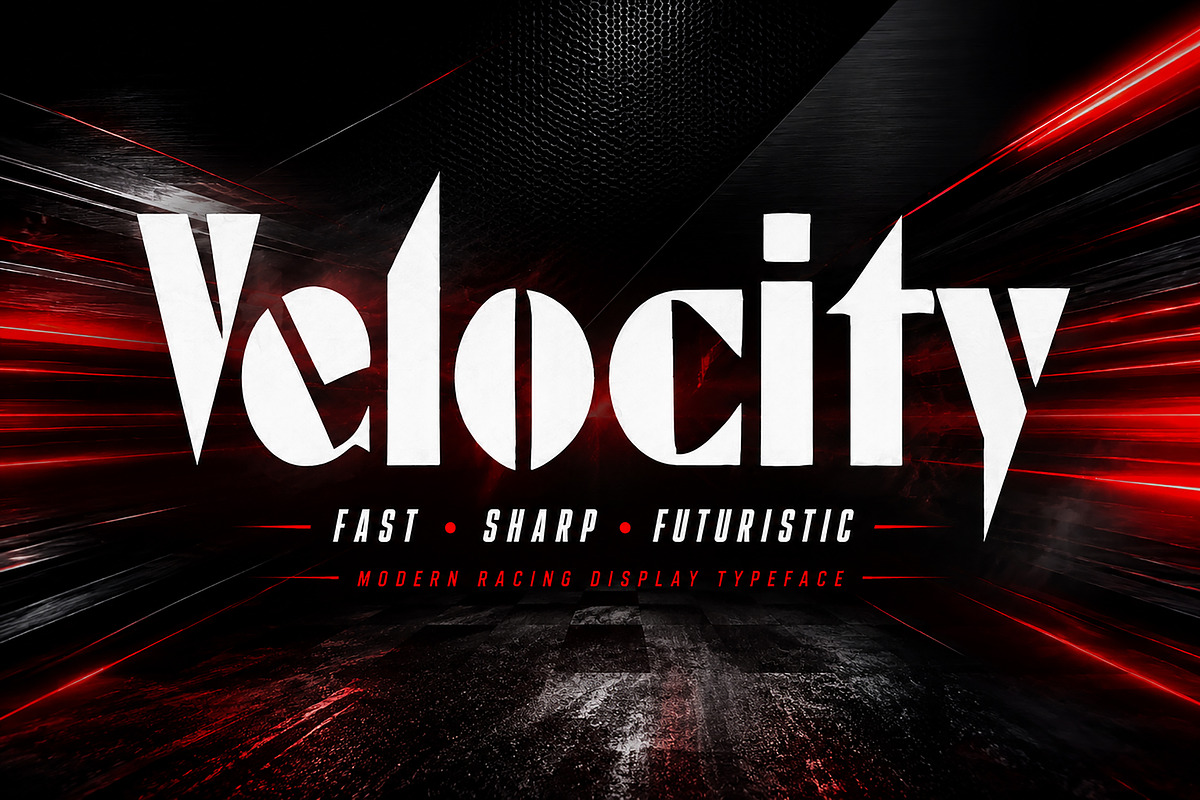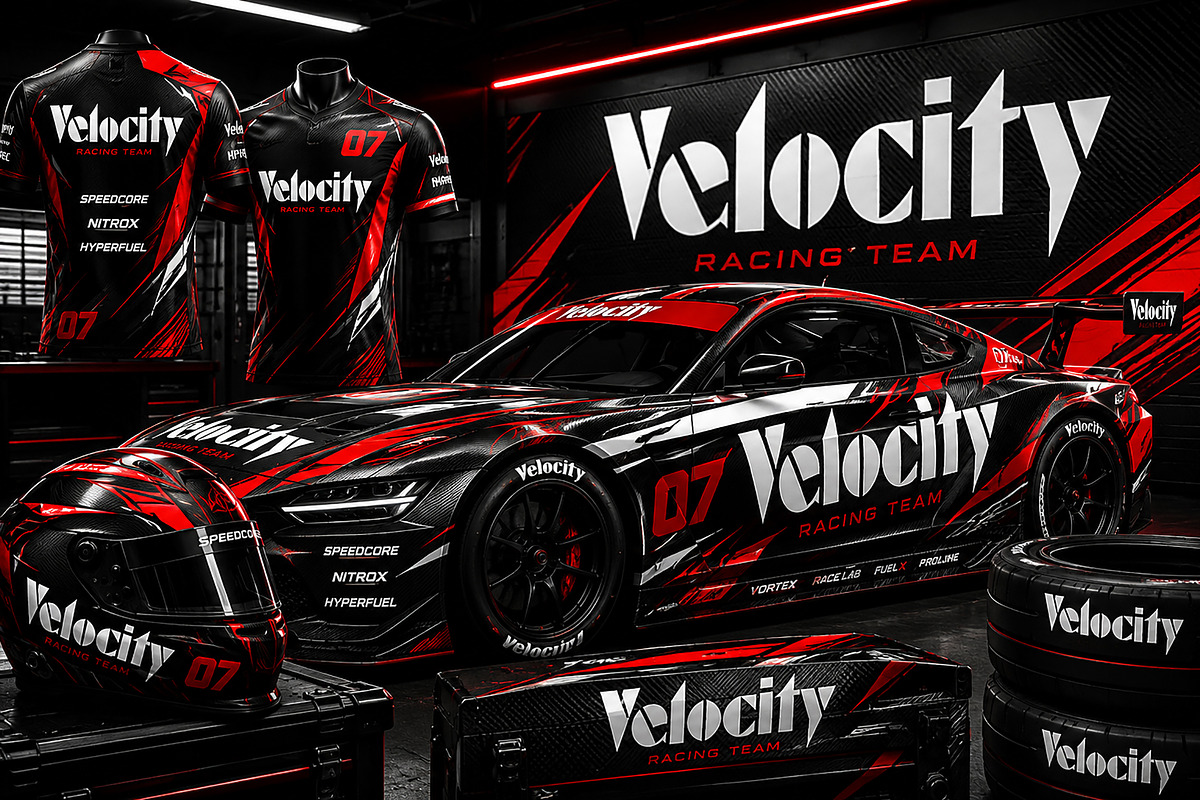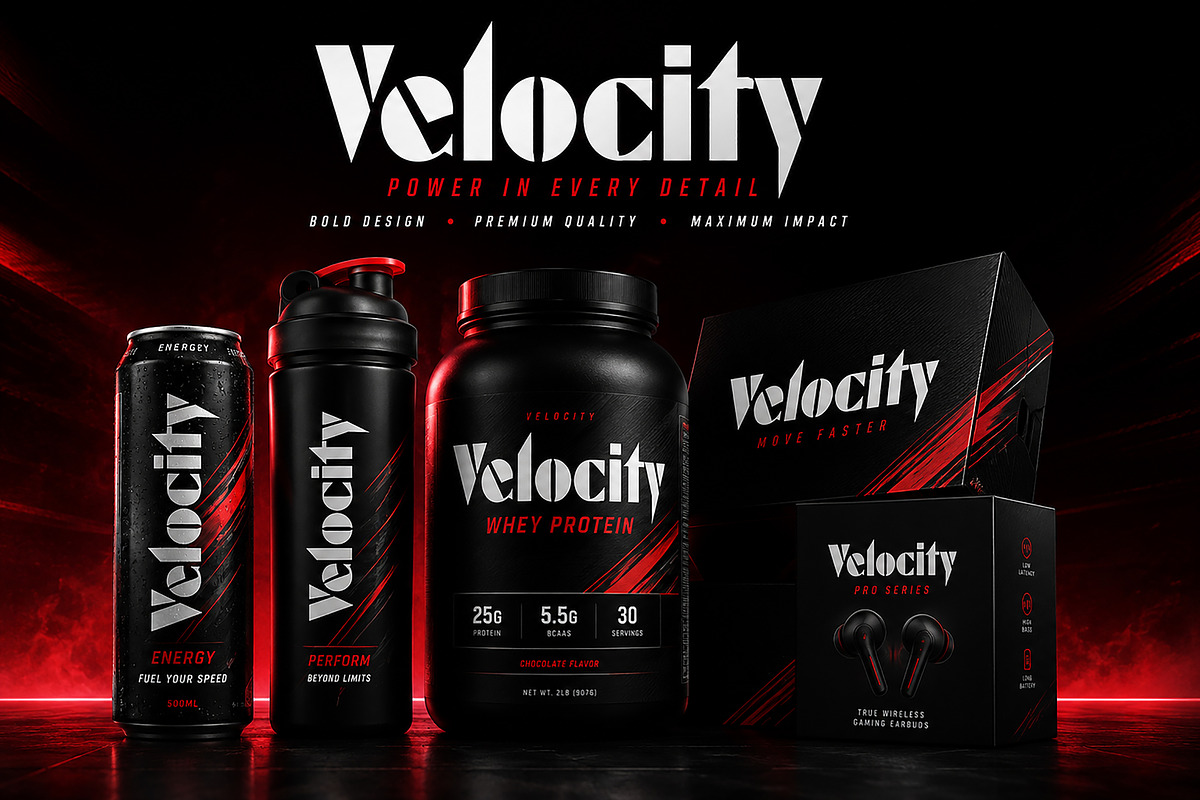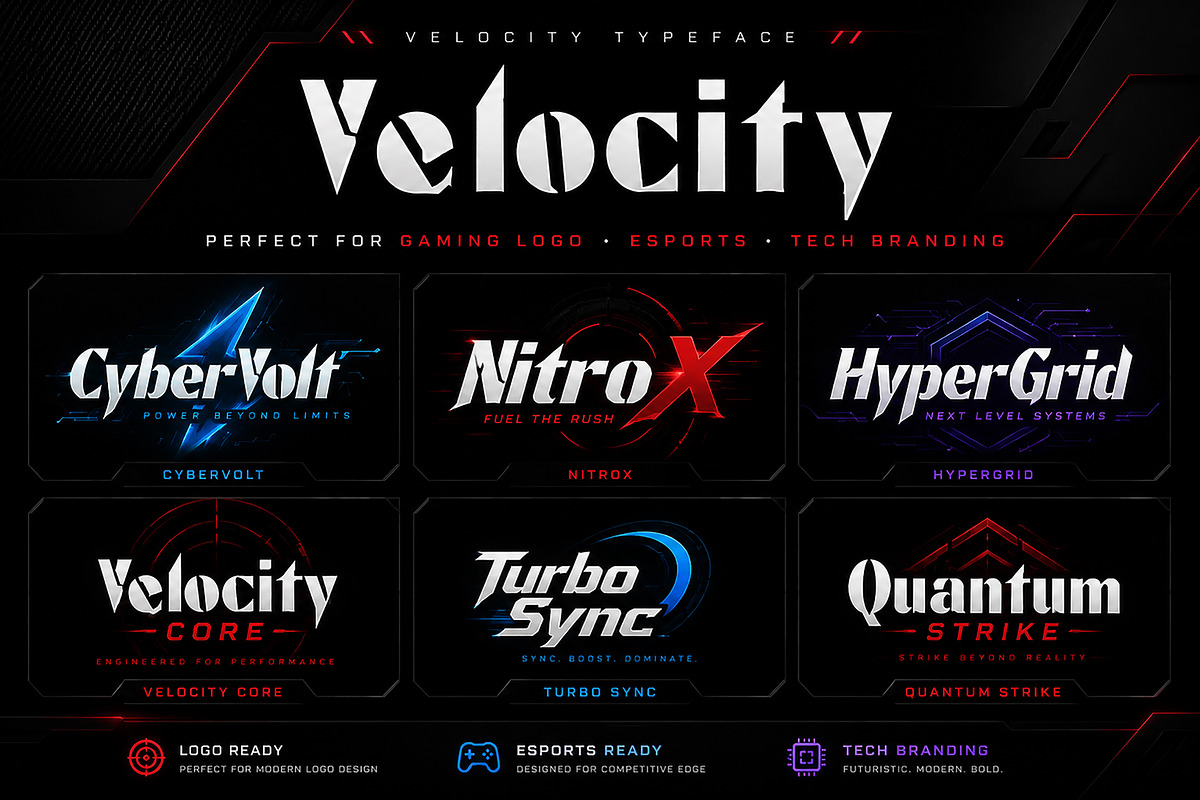
Velocity
Velocity – Modern Racing Display Typeface
Velocity is a bold, sharp, and futuristic display font built for speed-driven designs. Inspired by racing culture, esports energy, and modern tech aesthetics, this typeface delivers aggressive angles, condensed shapes, and high-impact letterforms that instantly grab attention.
Designed for creators who need strong visual power, Velocity is perfect for logos, gaming branding, sports posters, racing merchandise, automotive packaging, social media graphics, and futuristic headline designs.
Its dynamic structure makes it ideal for projects that demand motion, energy, and bold personality.
Racing logos
Esports branding
Gaming titles
Sports posters
Automotive branding
Energy drink packaging
Tech product branding
YouTube thumbnails
Social media promotions
Apparel designs
Bring speed, power, and futuristic energy into your next project with Velocity.